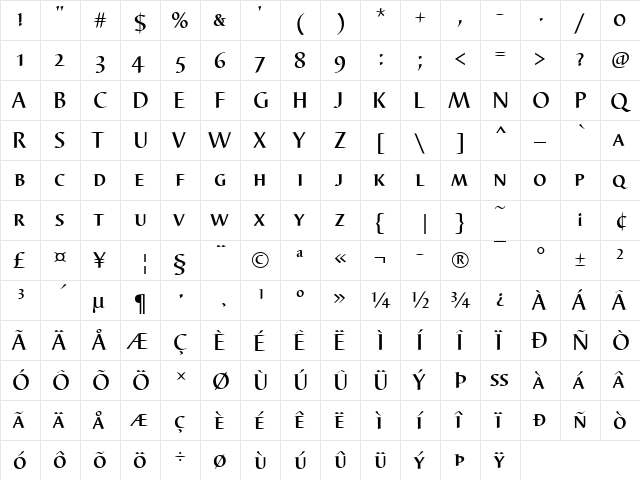
BarbedorSCTMed Regular Font Preview
BarbedorSCTMed Regular
Design Context for BarbedorSCTMed Typeface
BarbedorSCTMed offers clean, dependable letterforms without strong stylistic allegiance, making it a practical choice for designers who need flexibility.